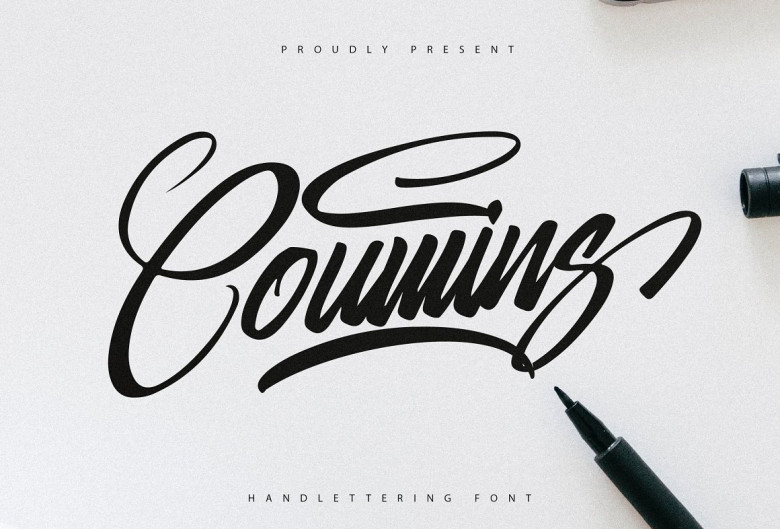
Coumins Font
Coumins adopts a soft & elegant brushstroke typeface, seeming to be handwriting appearance. These brushstrokes are seemingly rendered by fluid and dextrous pen flicks which make the font feel artistic and hand-made. In medium to large sizes the details of brushwork will display distinctly.
This lettering layout is a perfect match for designs that call for a homemade & personal feel. Coumins includes supplementary characters with Alternate forms & swashes to allow you to produce graceful styles of your own.
Coumins Handwritten Font